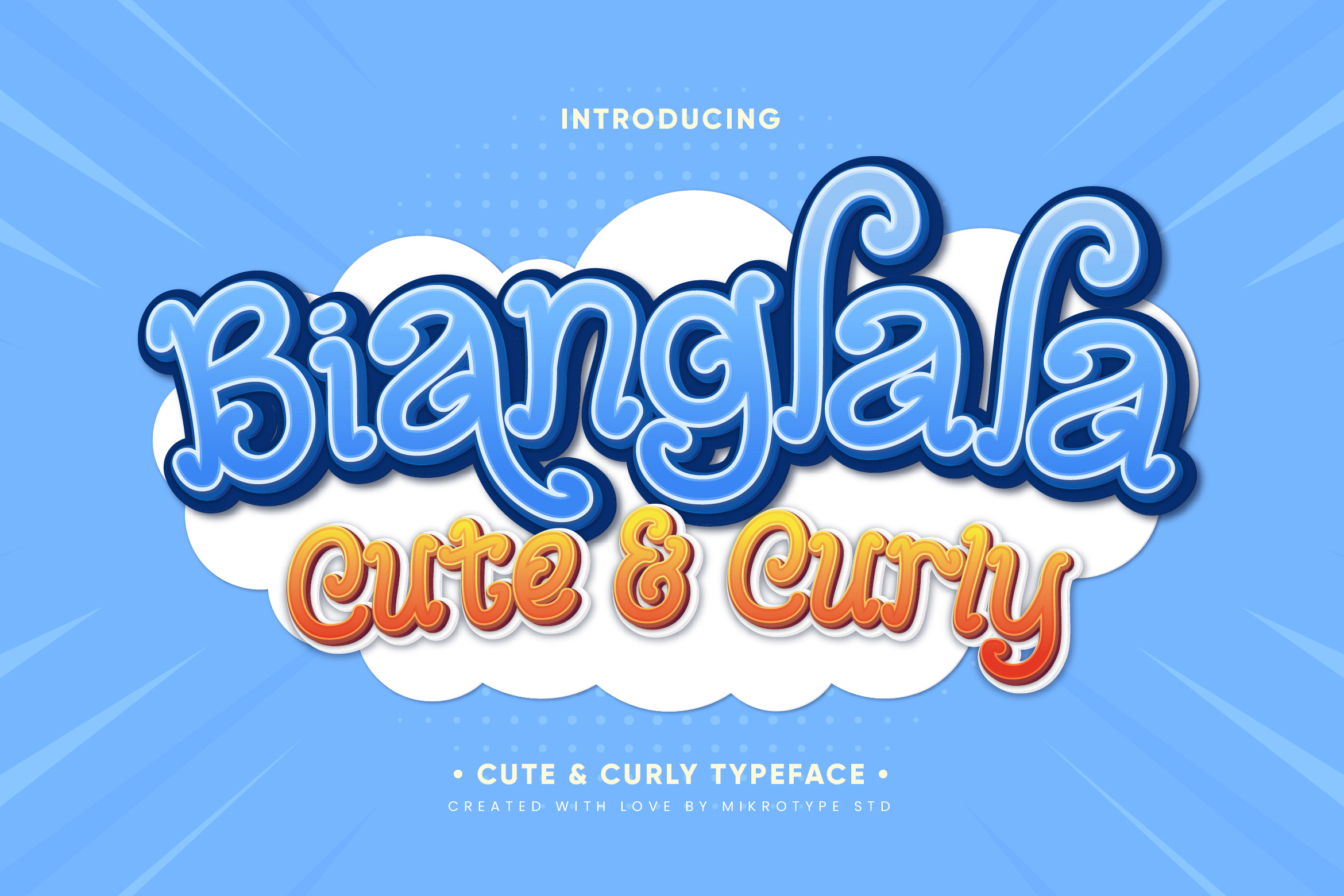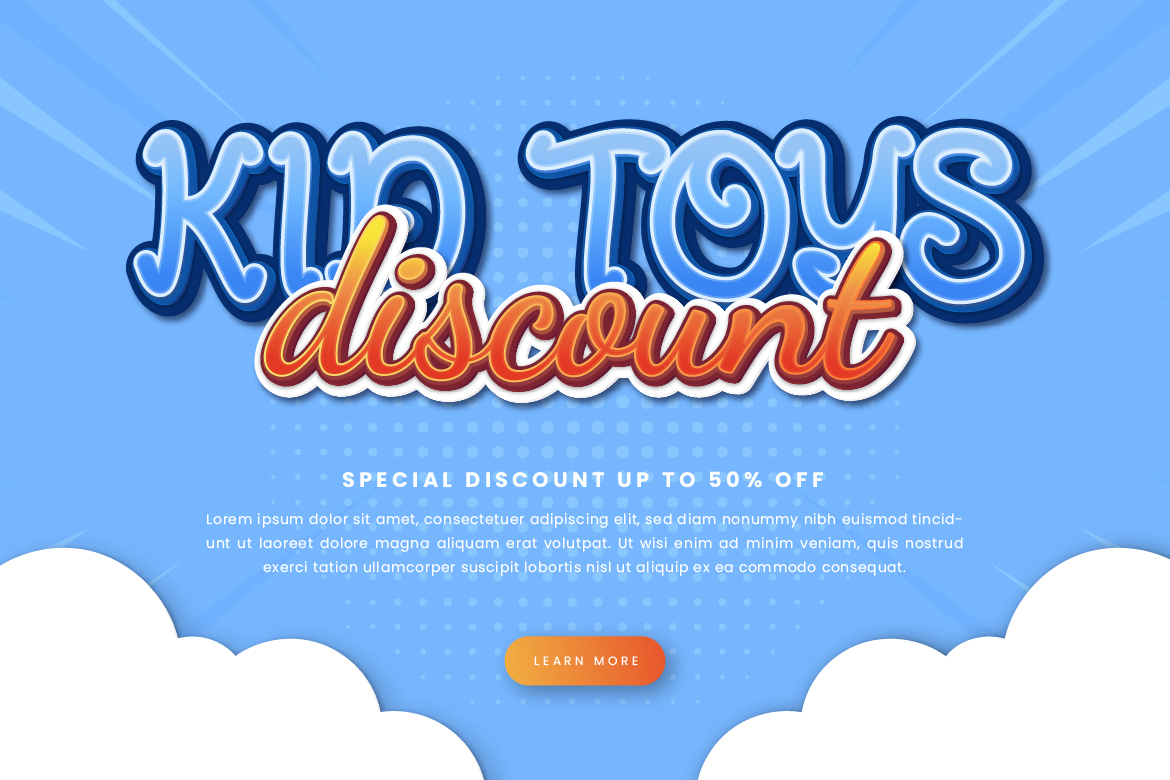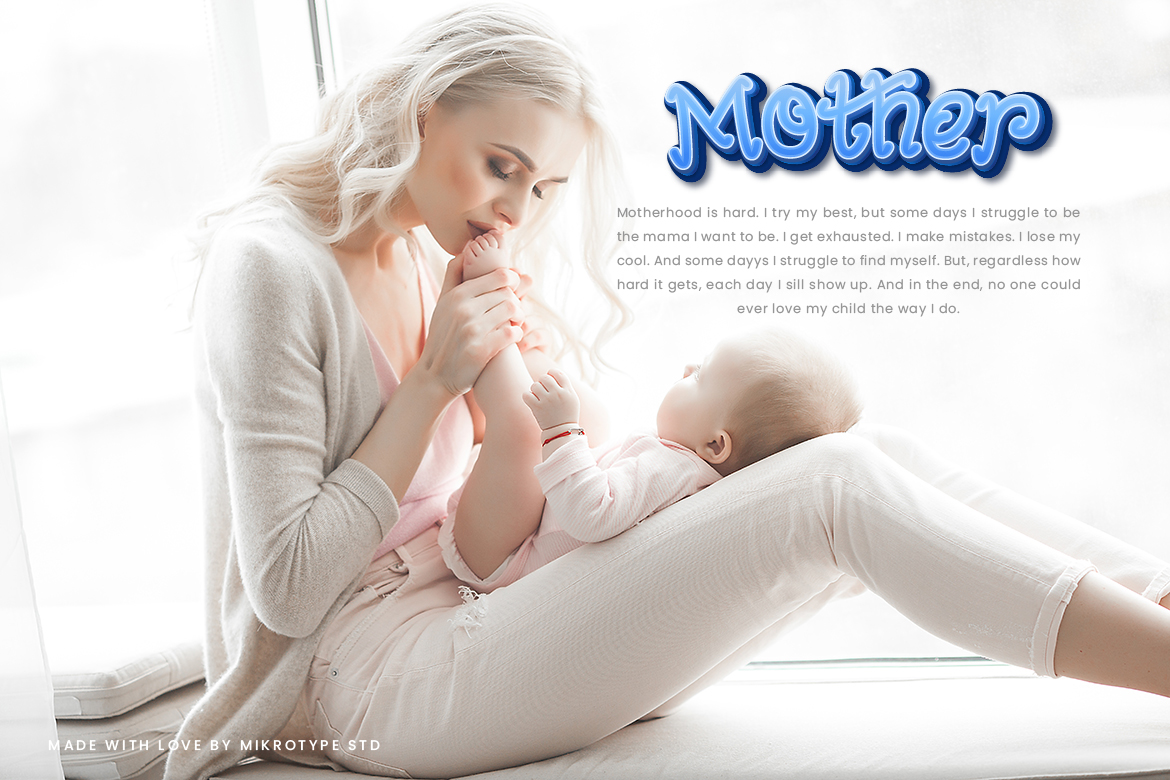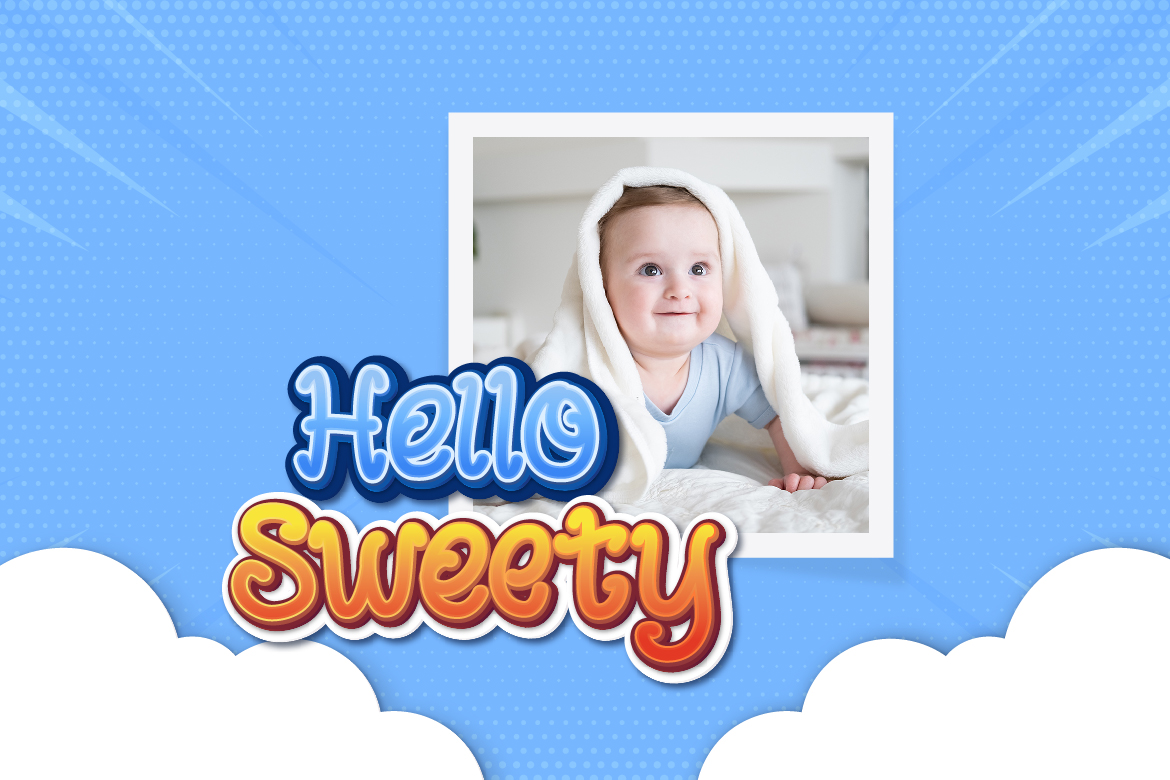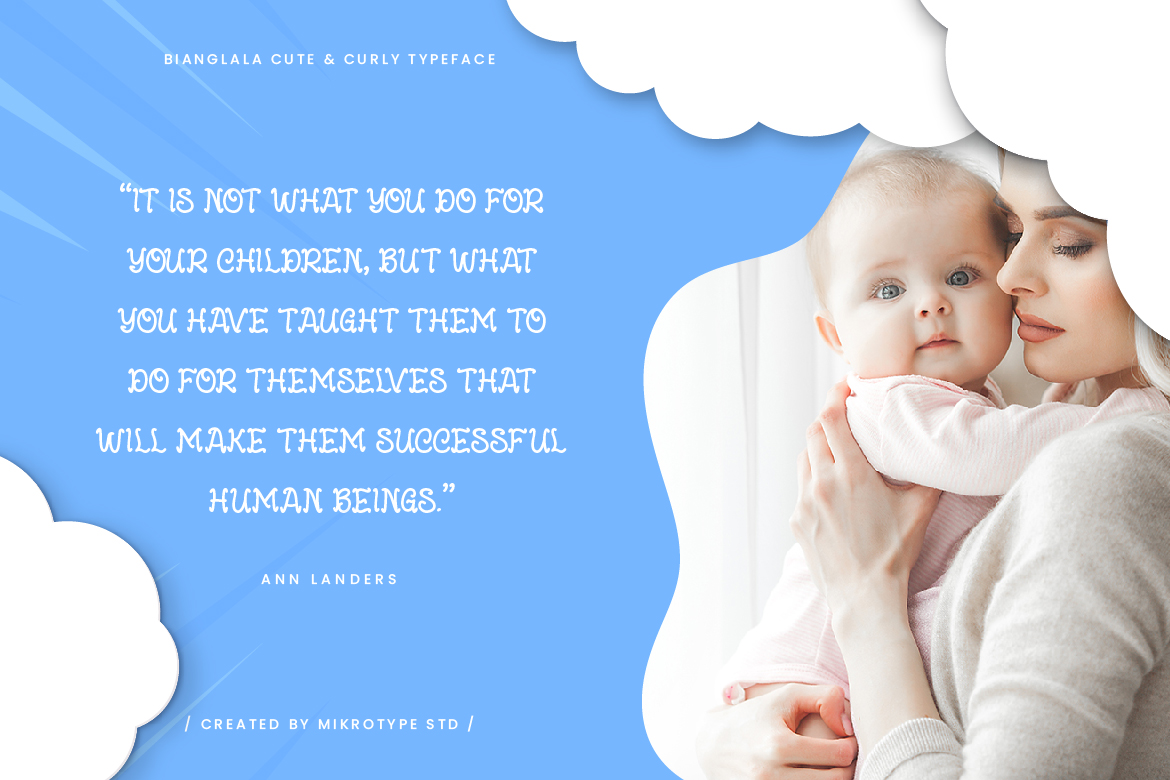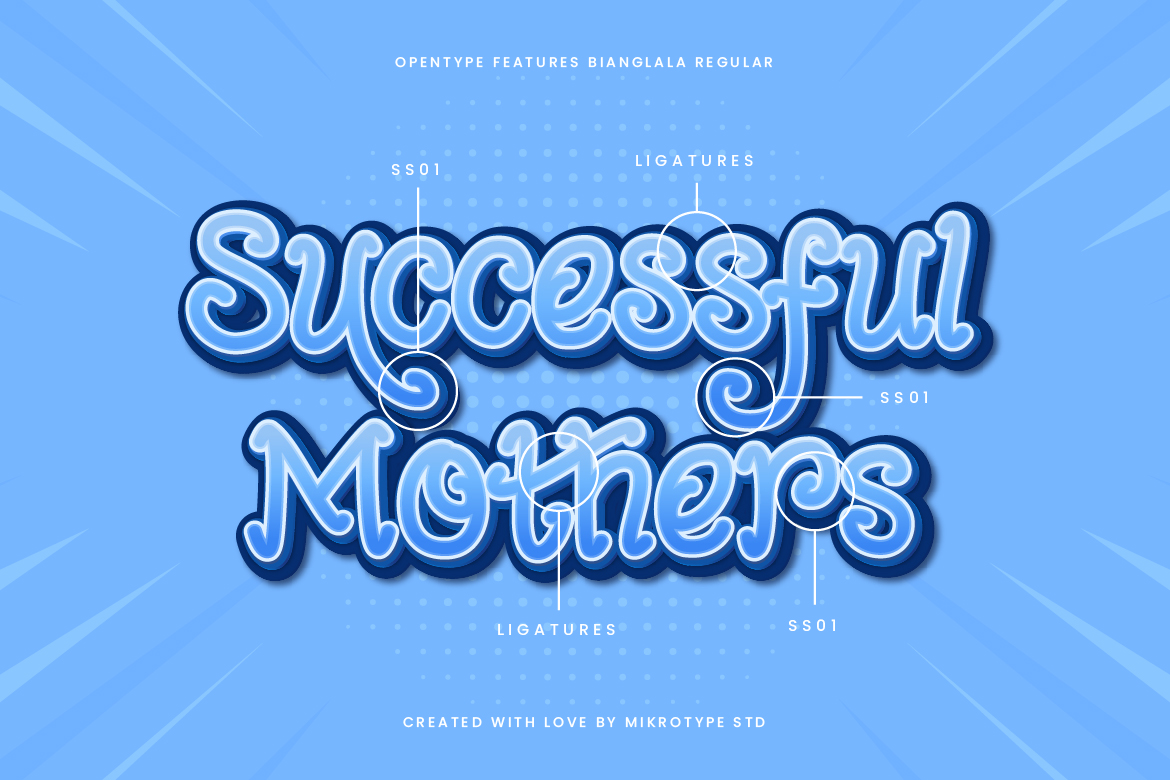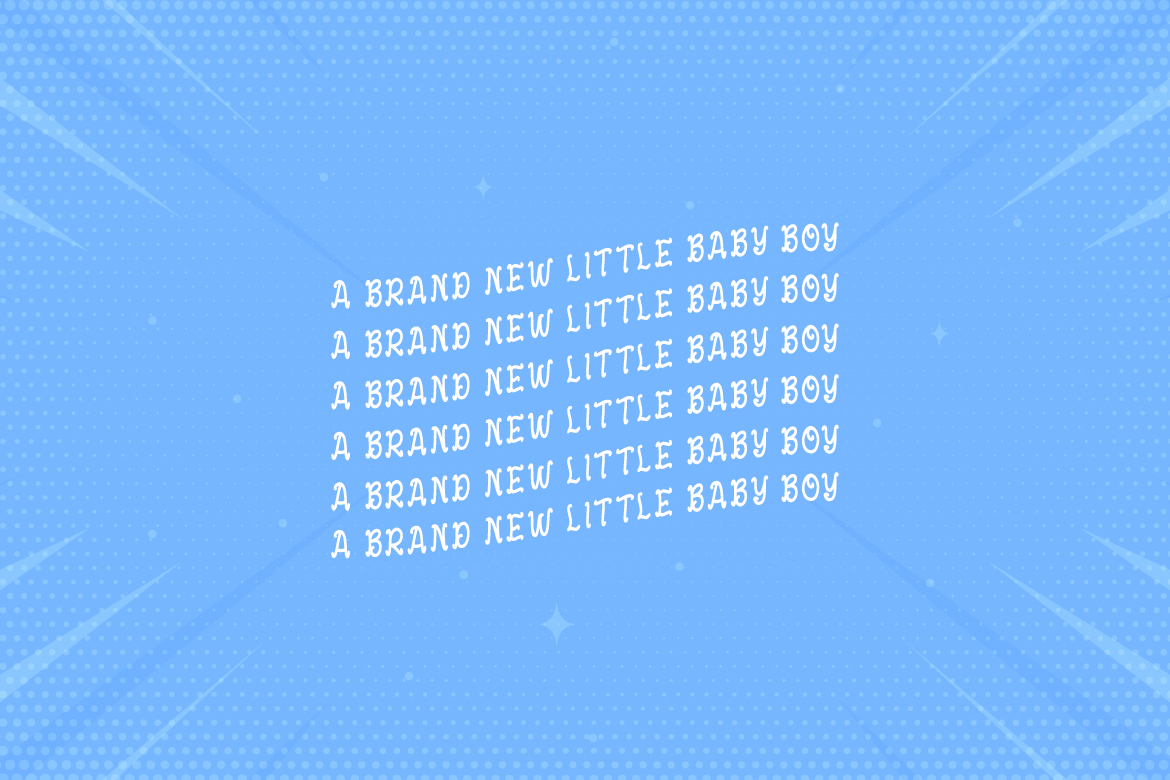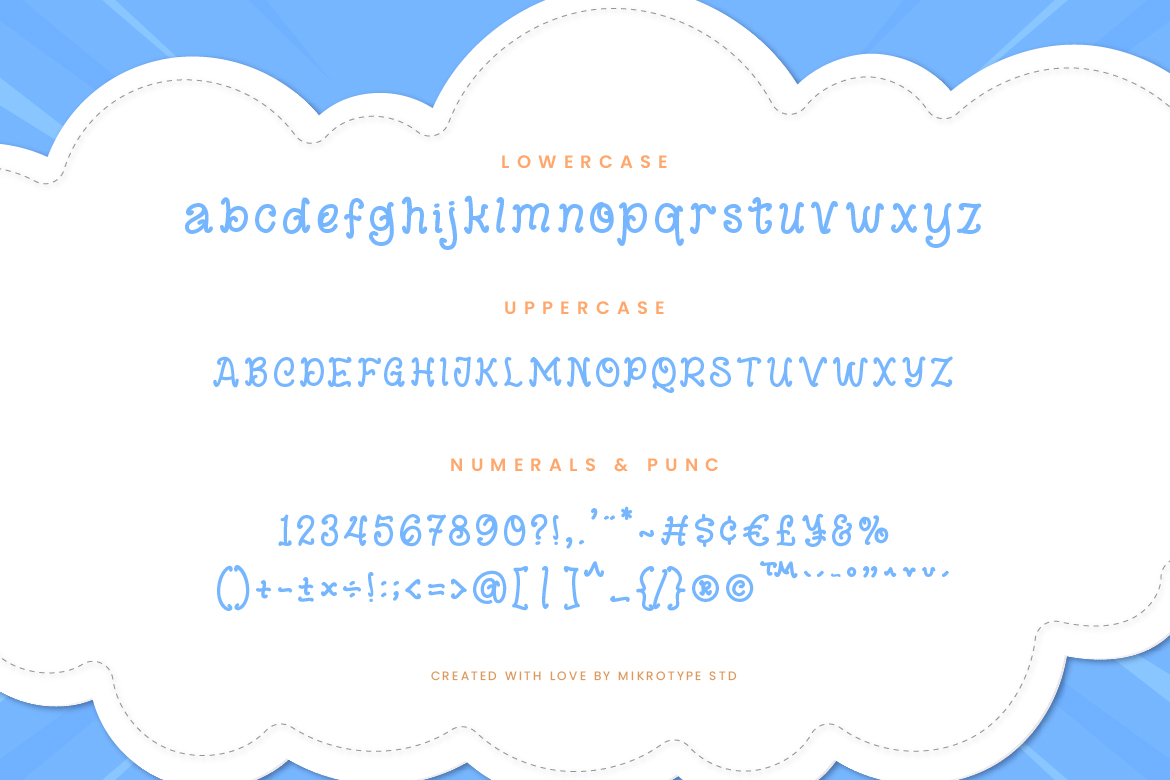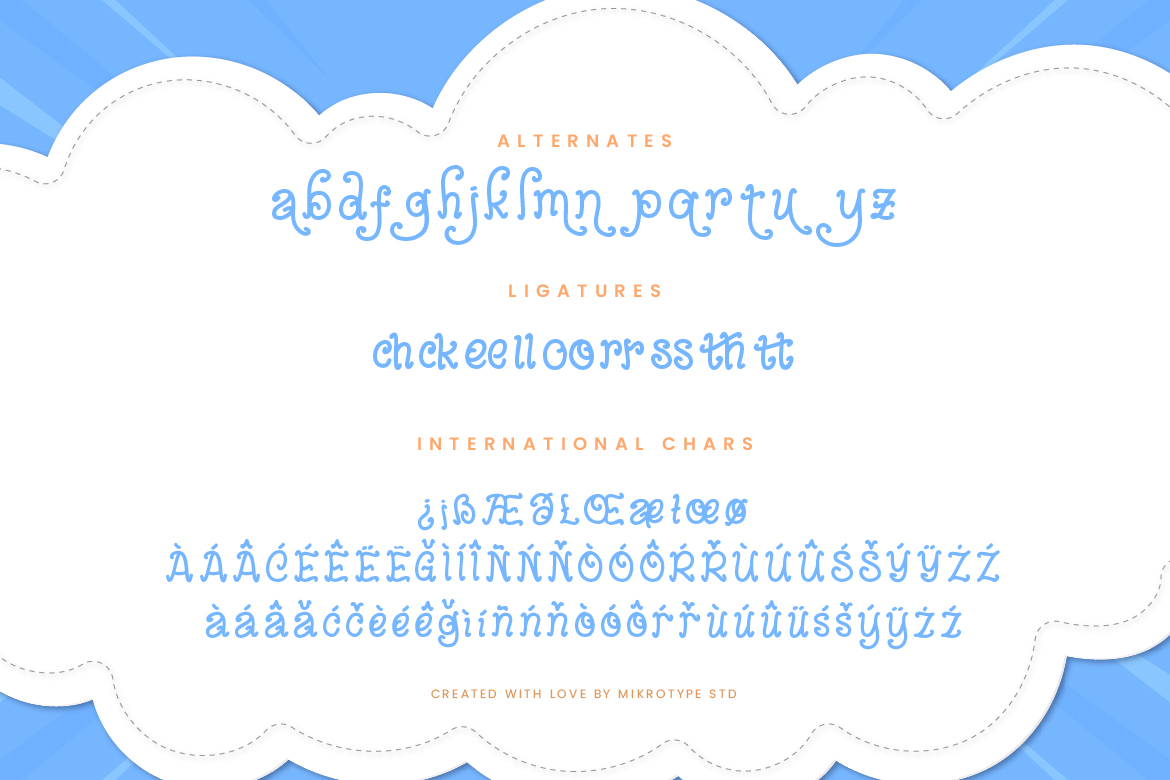
Bianglala Cute Business Font
Introducing Bianglala – A cute & curly typeface made with love, resulting in cute & adorable fonts. With its unique shape makes this font different from the others. The font is perfect for for movie title, logo, blogging, brand identity, book title, social media, branding, wedding invites, cards or simply use it in your next design project and suitable to use for many occasion.